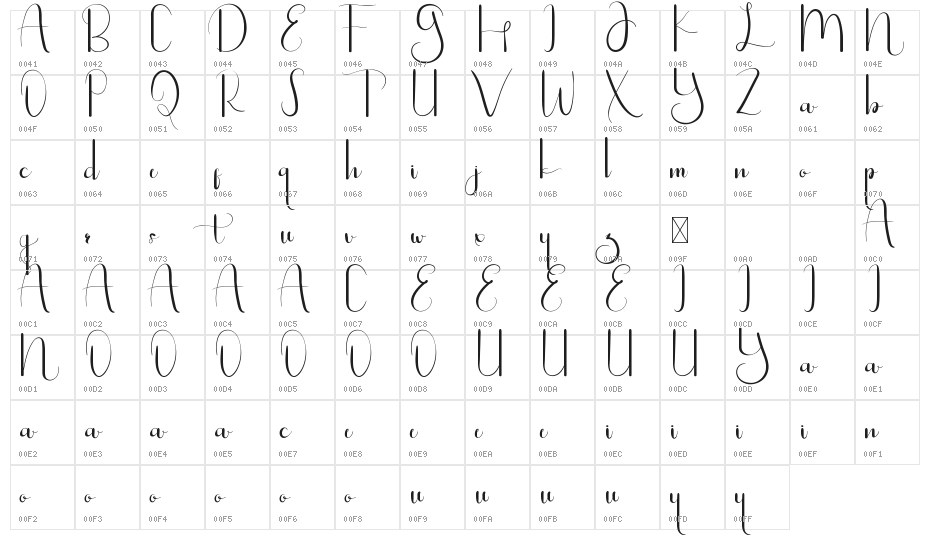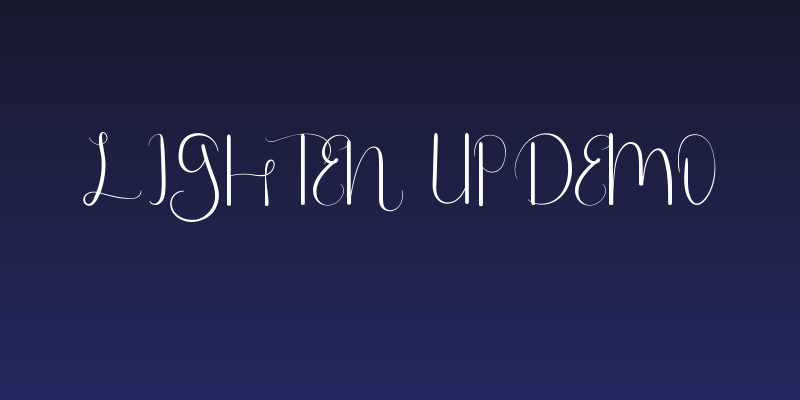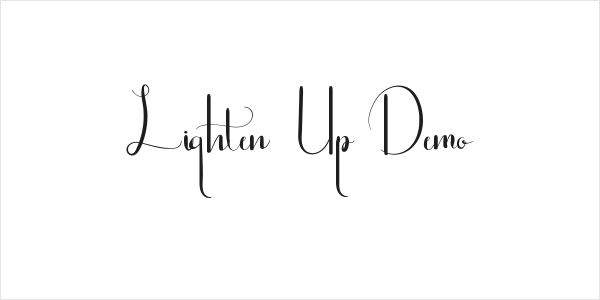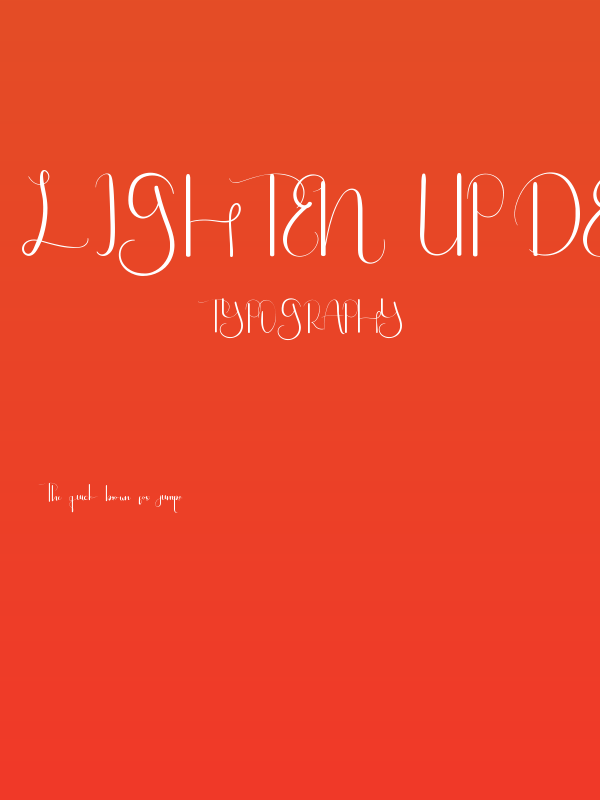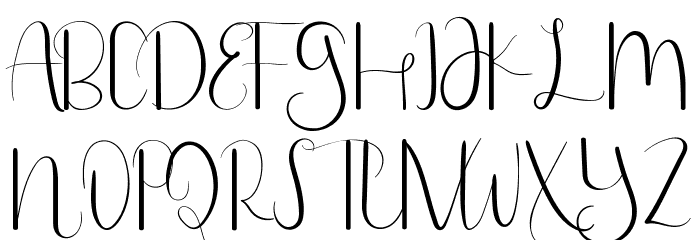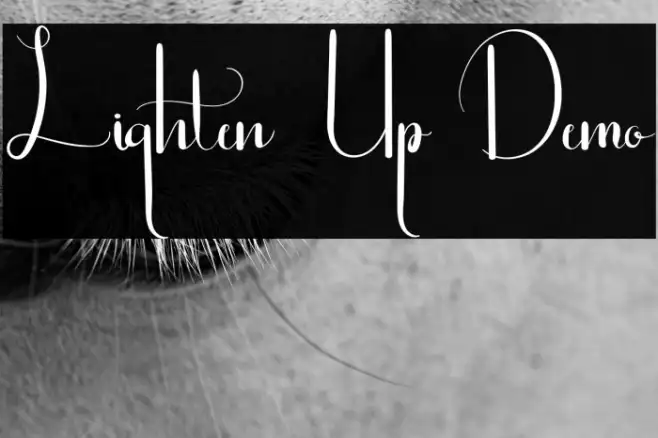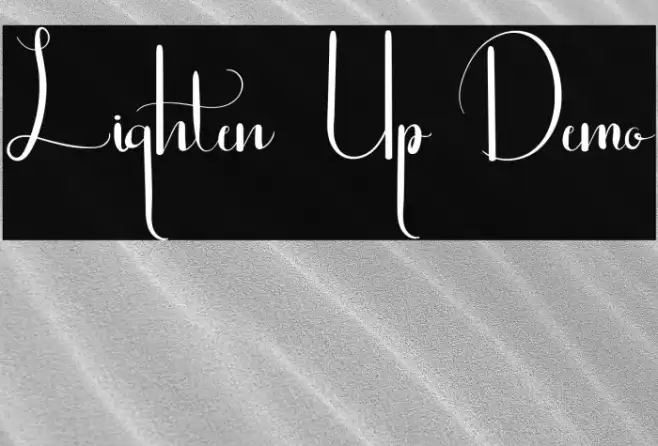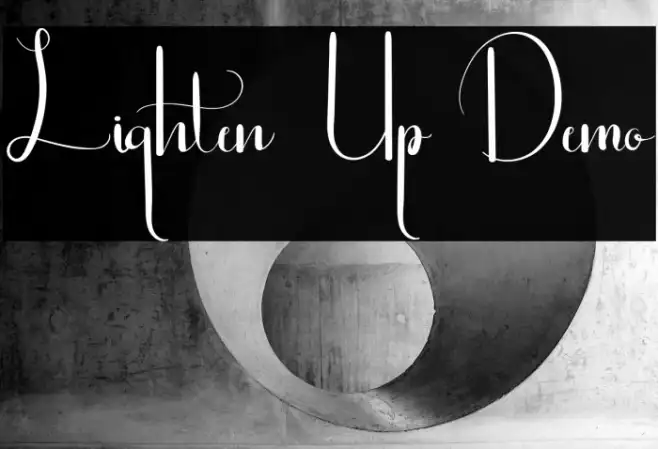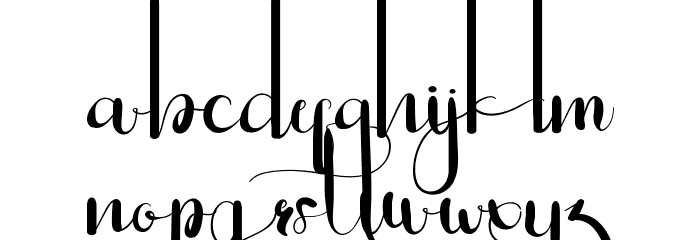
Lighten Up Demo Font
This font features a whimsical and elegant script style with a playful yet sophisticated flair. The uppercase letters are tall and slender, with graceful loops and swirls that add a touch of elegance. The lowercase letters maintain a consistent flow, with some characters featuring unique flourishes that enhance the overall aesthetic. The numbers and special characters are designed to match the flowing style, ensuring a cohesive look across all text. This font's delicate lines and artistic curves make it ideal for creative and decorative applications.
| Proposed Projects | Ideal for wedding invitations, greeting cards, branding, and decorative projects. |